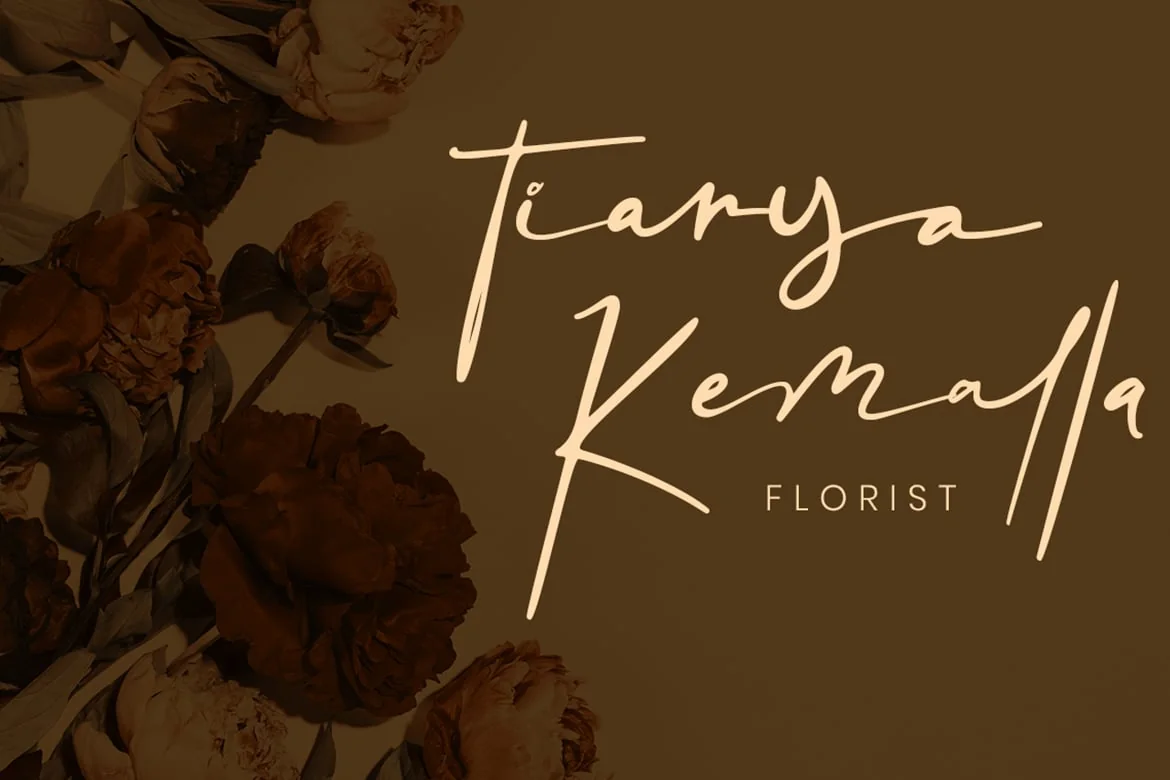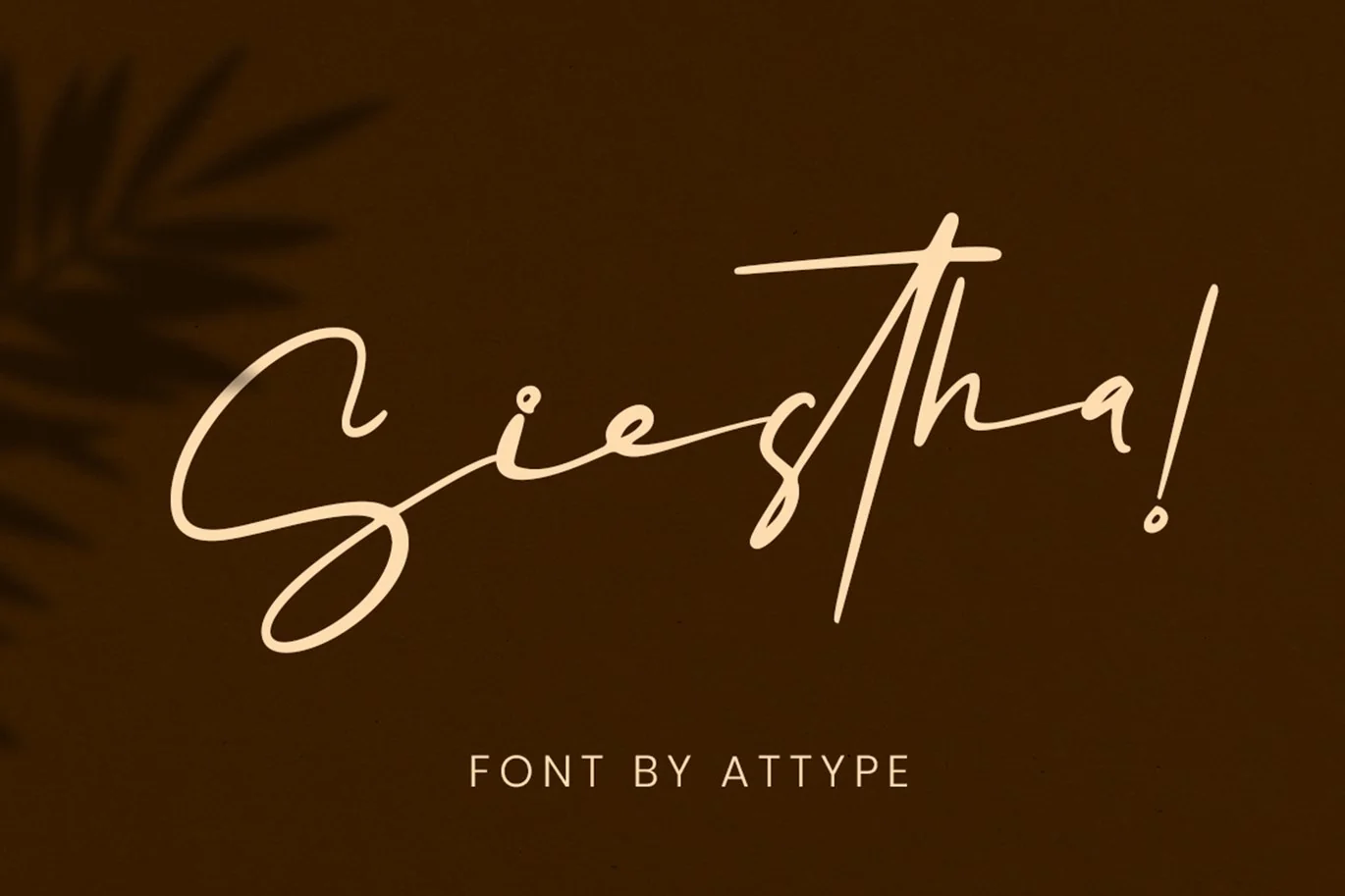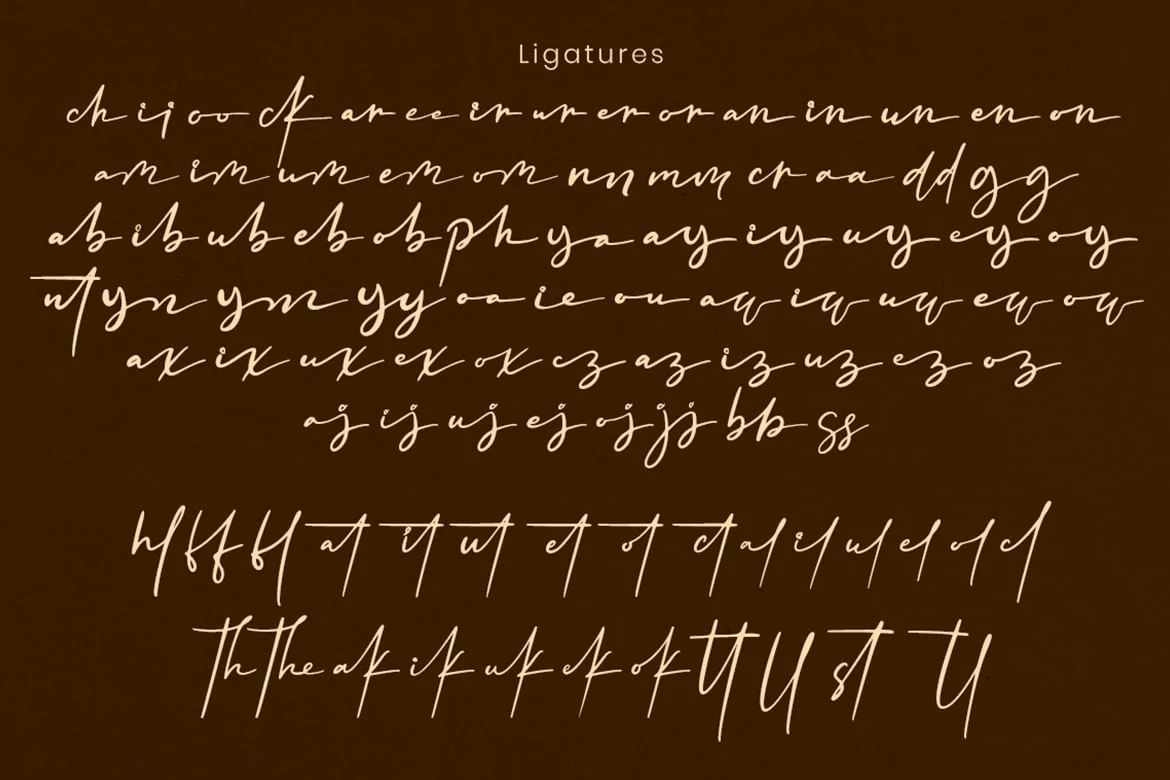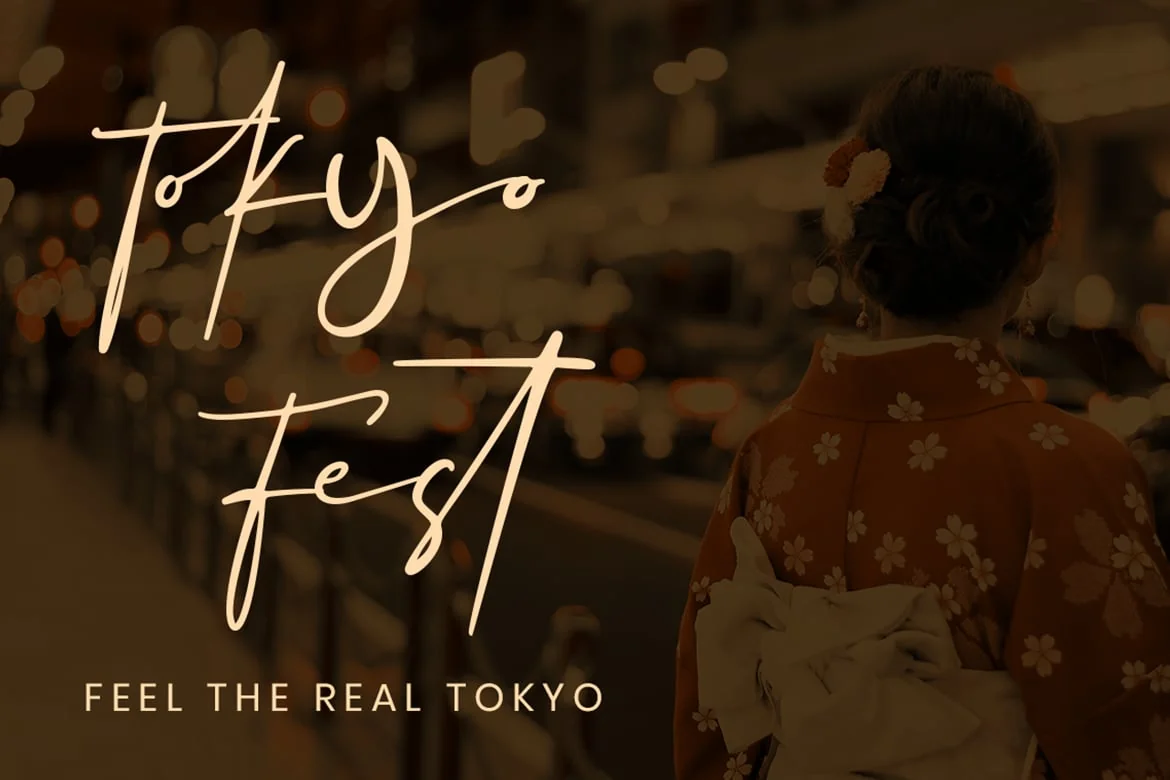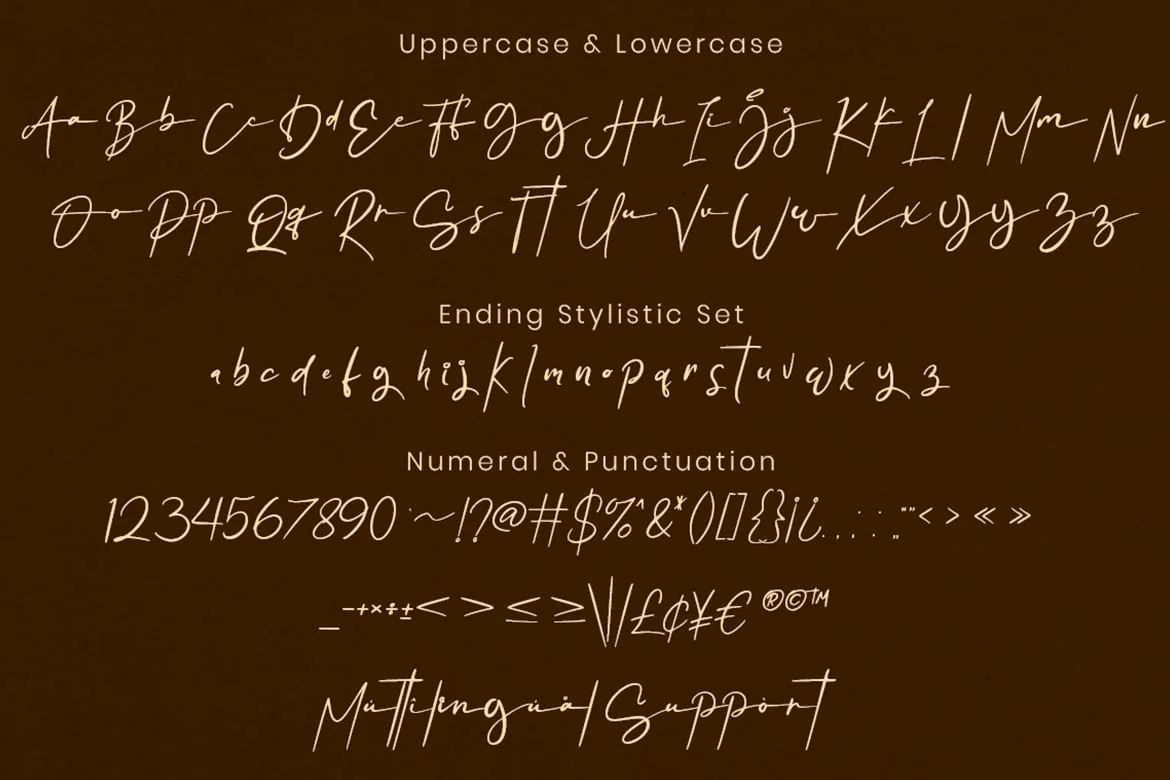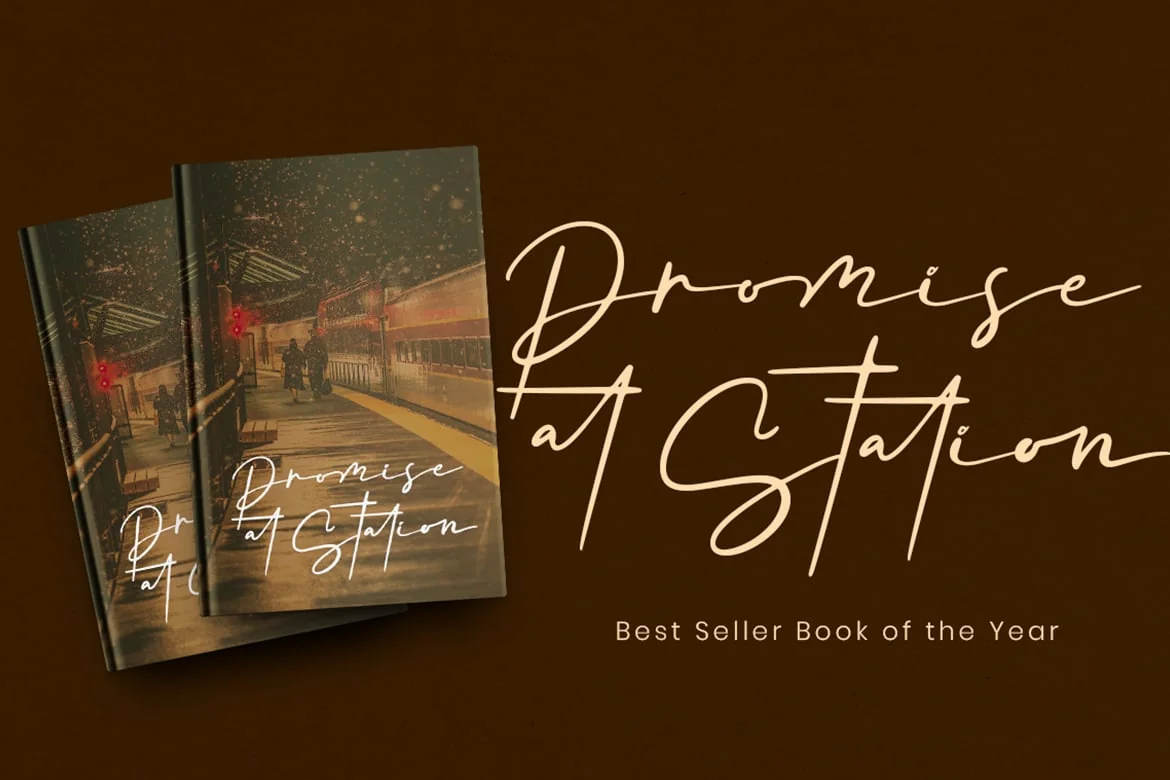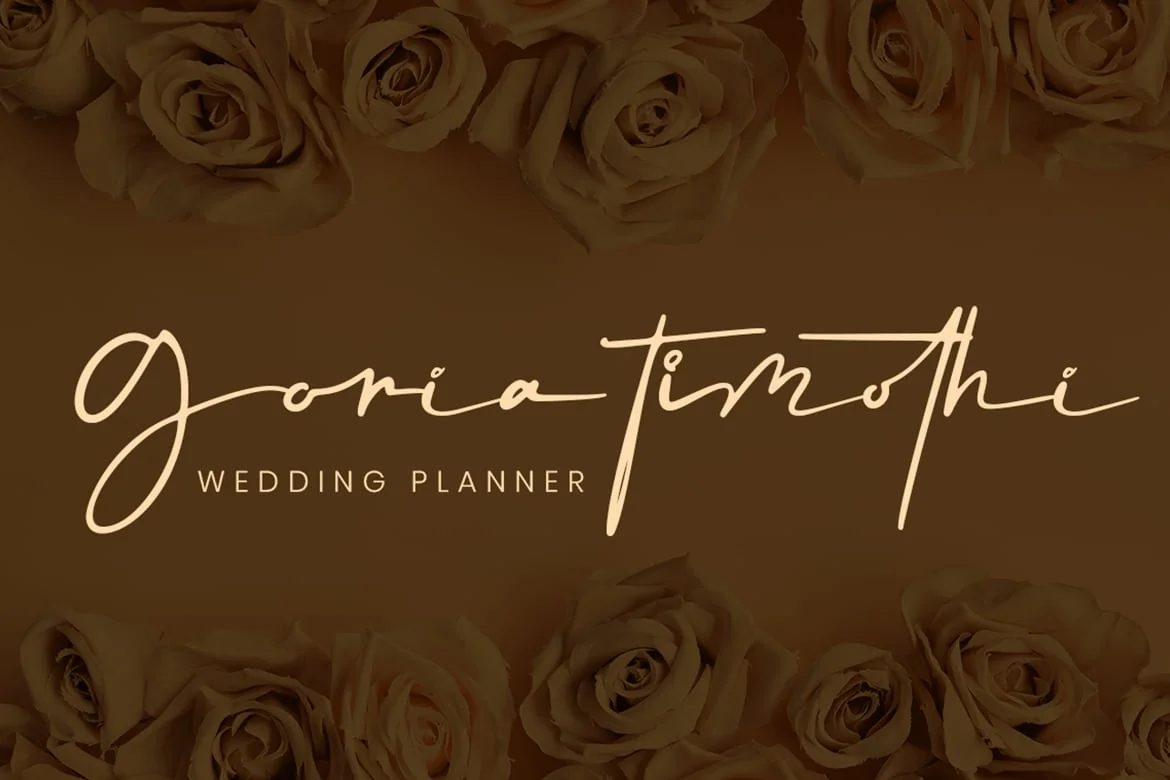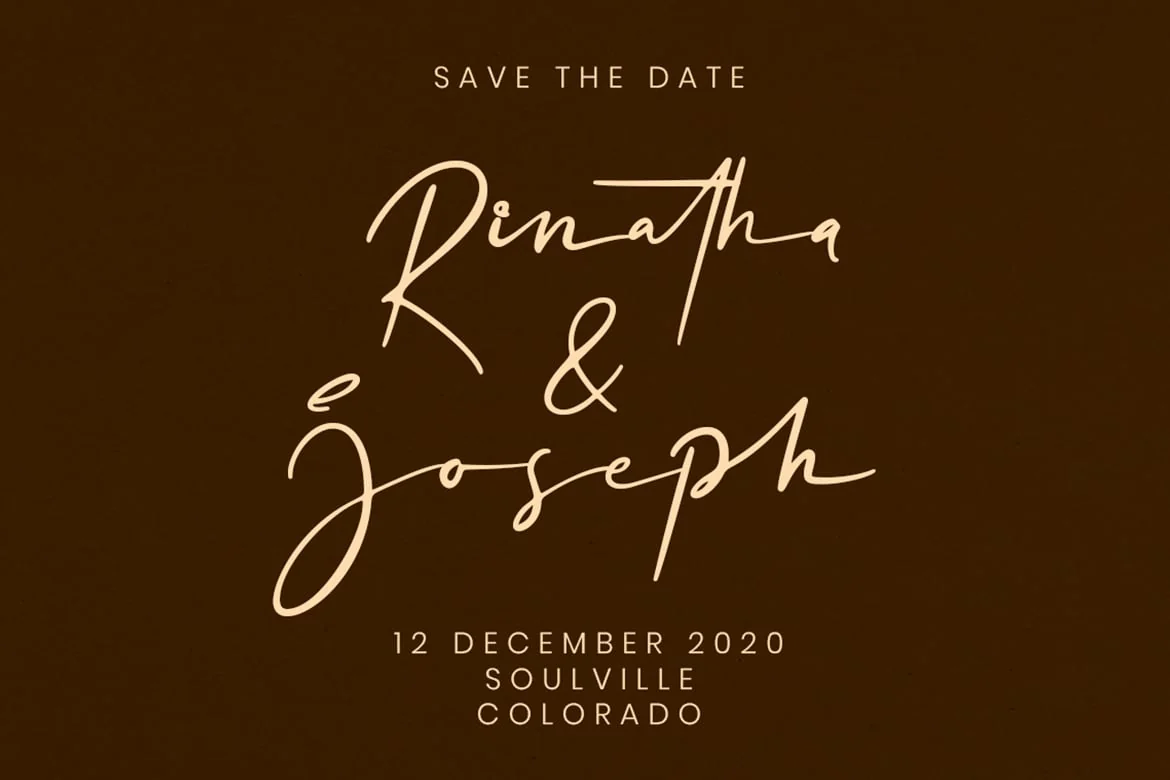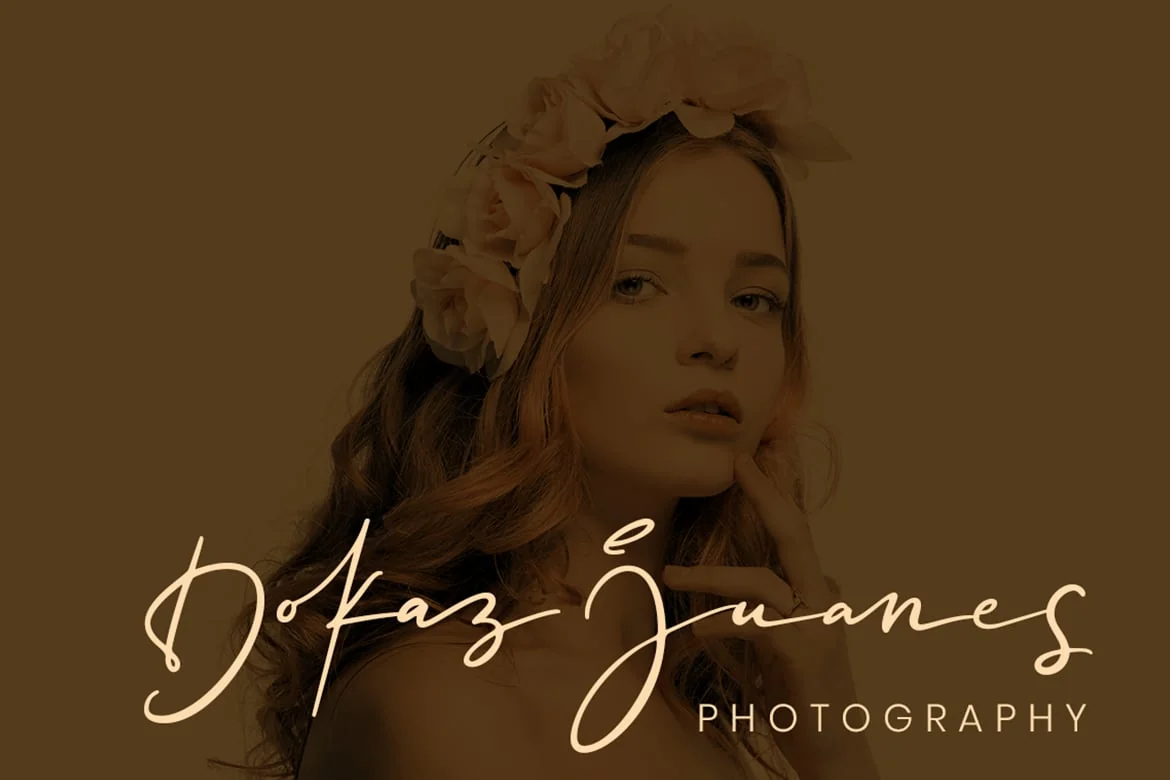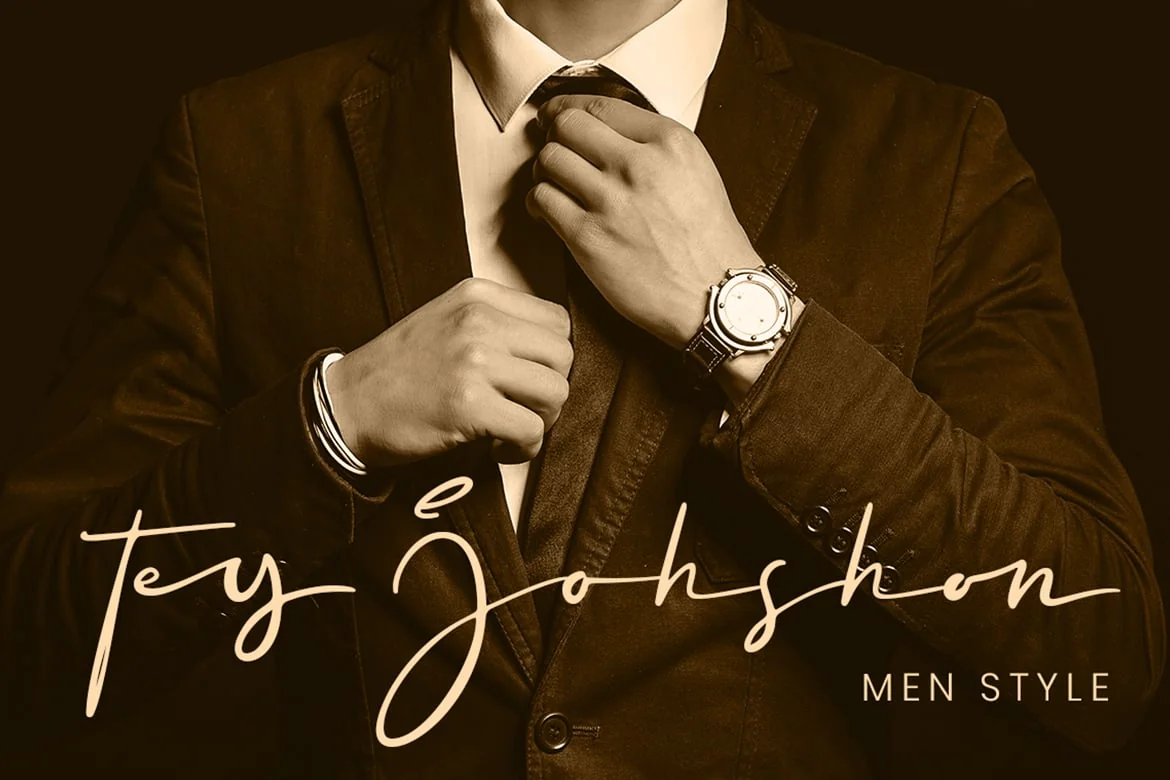
Siestha – Signature Font
Siestha is a stylish signature font with more than 90 ligatures and ending stylistic set that make amazing combination.
- More than 90 ligatures
- Ending stylistic set